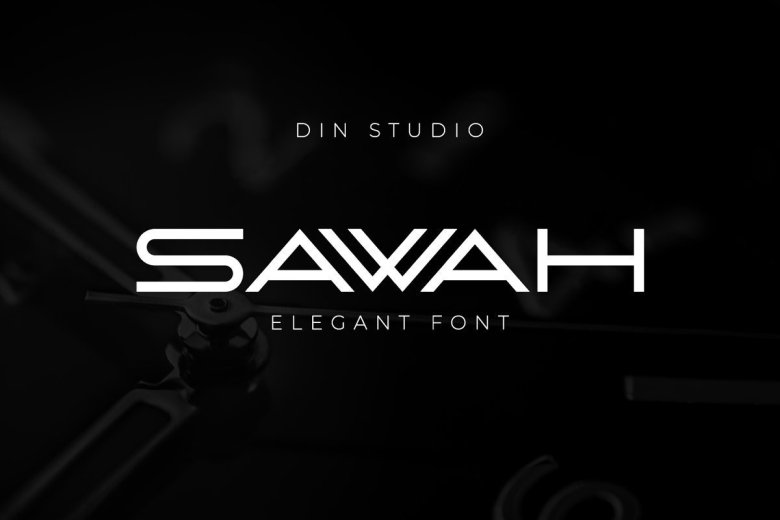
Sawah Modern Elegant Display Font
Sawah is a modern and elegant display font. It celebrates abstract shapes in all their eclectic beauty. This font will look truly outstanding in a wide range of contexts. It is the best for titles, headlines, symbols, logo, and many more.